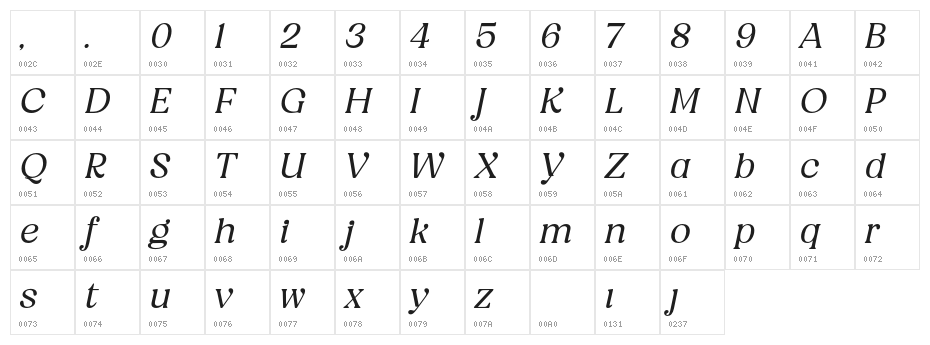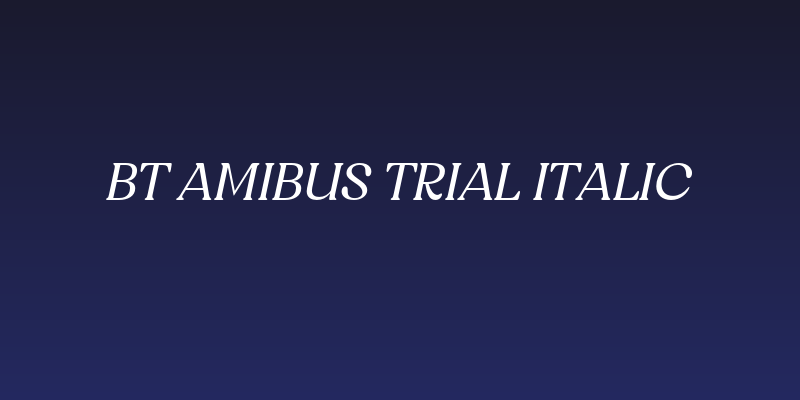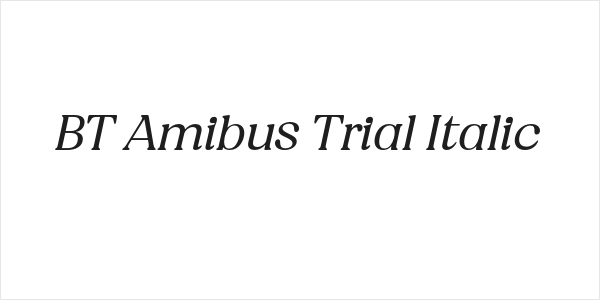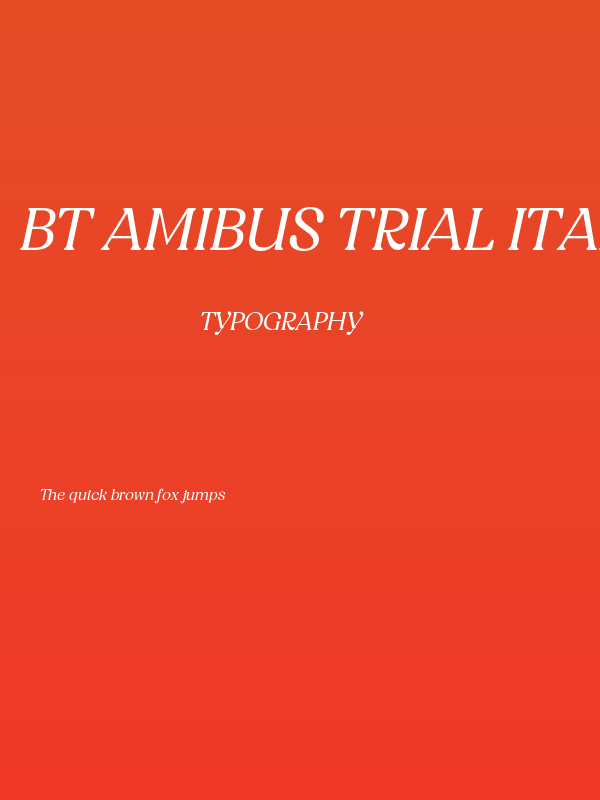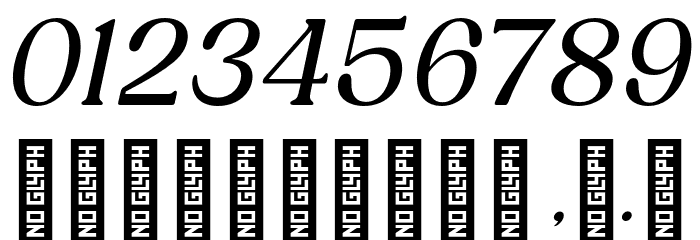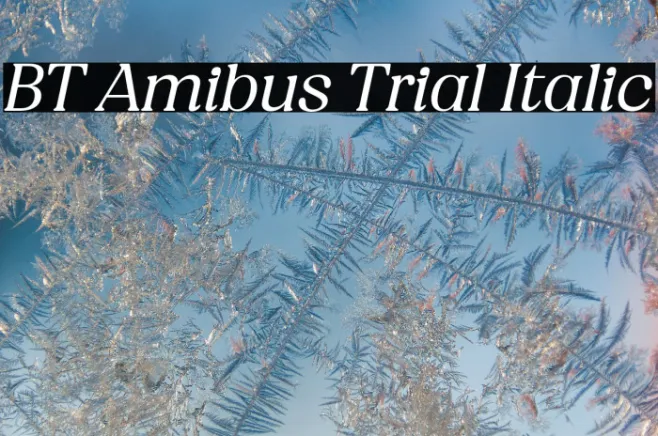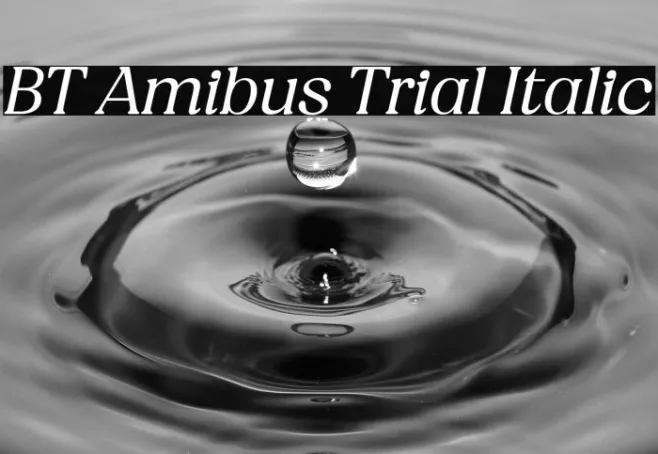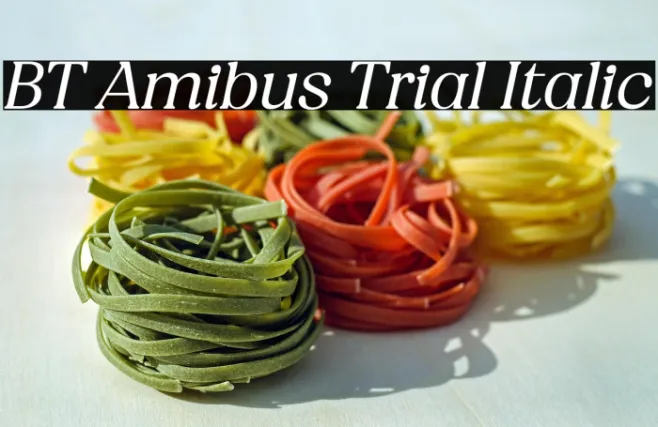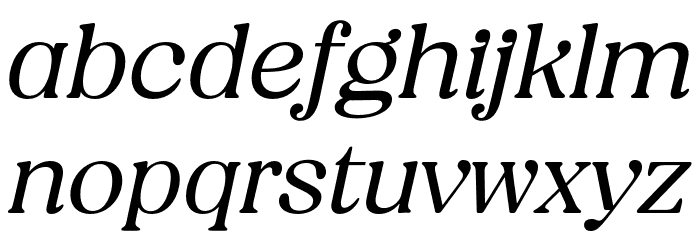
BT Amibus Trial Italic Font
BT Amibus Trial Italic Description
This elegant typeface features a classic italic style with smooth, flowing curves and a refined appearance. The letters are slightly slanted, giving a sense of motion and sophistication. The uppercase characters are well-proportioned, while the lowercase letters maintain a consistent and harmonious flow. The numerals are clear and distinct, making them easily readable. The overall design is balanced, with moderate contrast in stroke thickness, adding to its legibility and aesthetic appeal.
| Overall Style | Classic |
| Use Case | Headlines, Body text, Logos |
| Proposed Projects | Ideal for elegant invitations, formal documents, branding, and editorial design. |